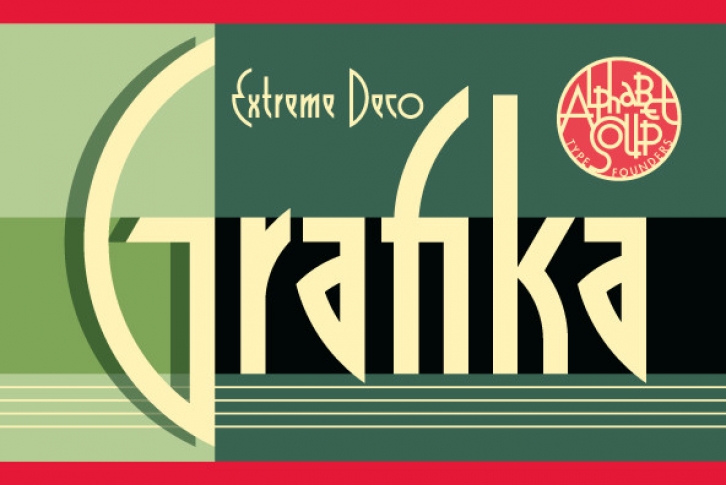
Grafika is a completely original design, done in an Art Deco spirit reminiscent of the 1920s and 30s. Michael Doret designed Grafika many years ago to be typeset for both opening and end credits and for title cards for the Merchant/Ivory feature film Savages. The design for Grafika languished in Michael's archives until recently, when he rediscoved it. Michael has digitally redrawn Grafika, completing it with all the alternates, ligatures, math, foreign accented characters and punctuation that weren't required of the original design for film. Grafika is strongest when set in upper and lowercase, its unique caps extending below the baseline, although all caps settings are encouraged as well.